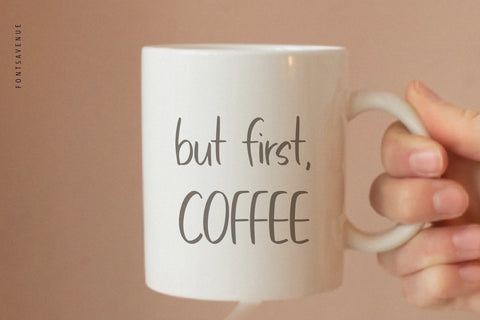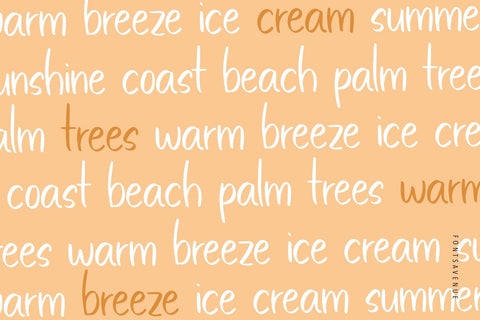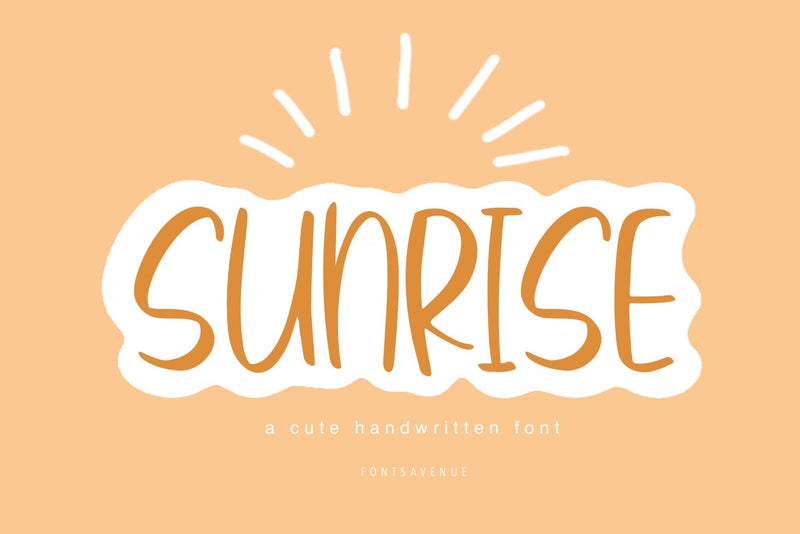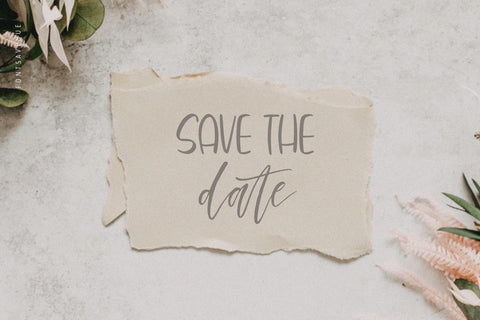
Sunrise | Cute Handwritten Sans Serif Font
Sunrise is cute and clean handwritten sans serif font, perfect for invitations, logo design, branding, stickers, quotes and much more!
- Uppercase and lowercase letters
- Accented characters